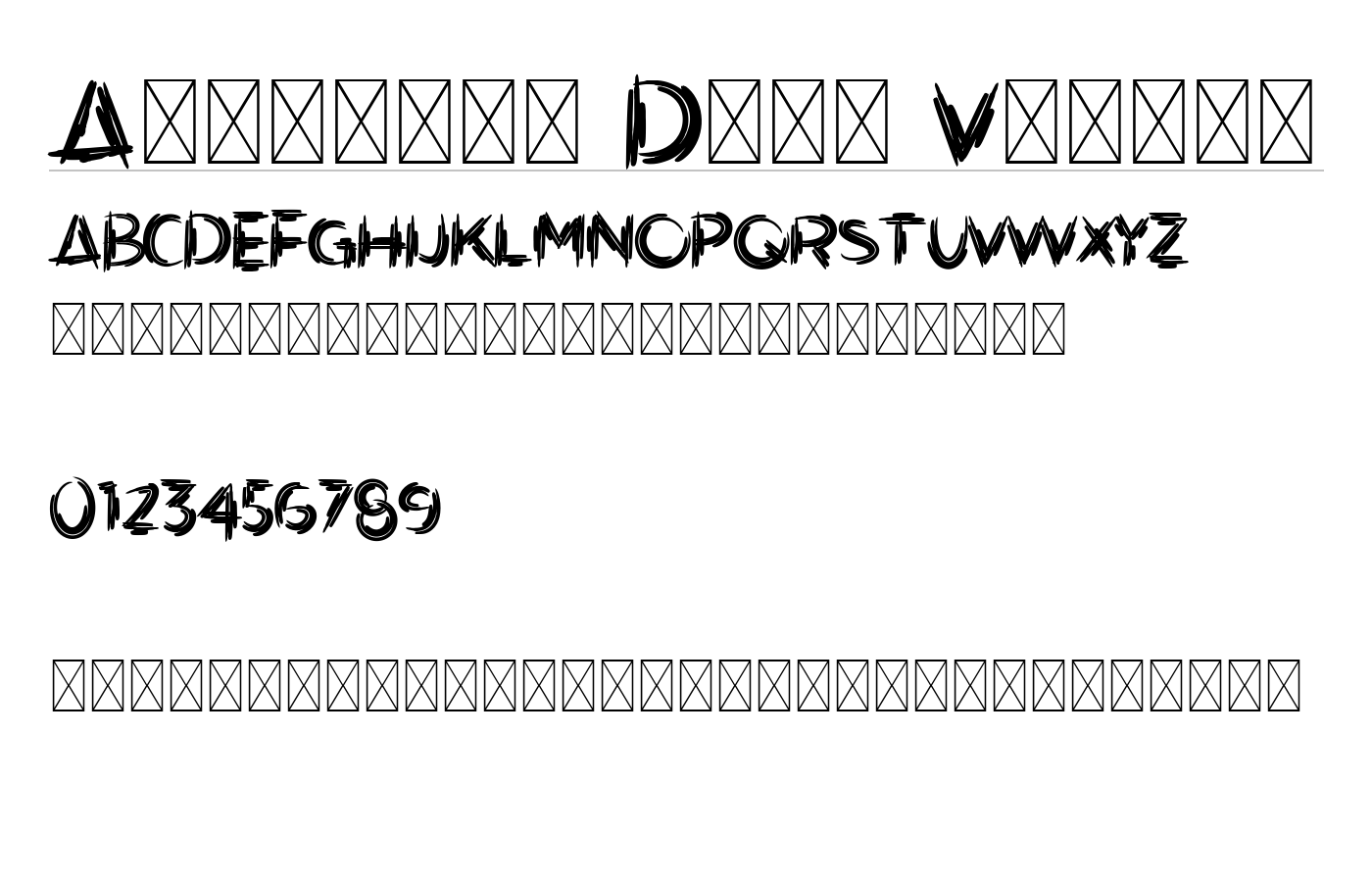
Aristik Demo Versio is a bold, hand-drawn sans-serif font with a lively, sketchy style that adds a raw, artistic feel to any design. Its irregular strokes and energetic shapes make it perfect for creative projects, informal branding, and expressive headlines where a playful yet striking impact is desired. This font works well for art-related websites, posters, and unique logo designs that aim to stand out with personality and spontaneity.
Artistik Demo Versio Font
About Artistik Demo Versio Font
| Font family | Artistik Demo Versio Font |
| Designer | Sigit Dwipa |